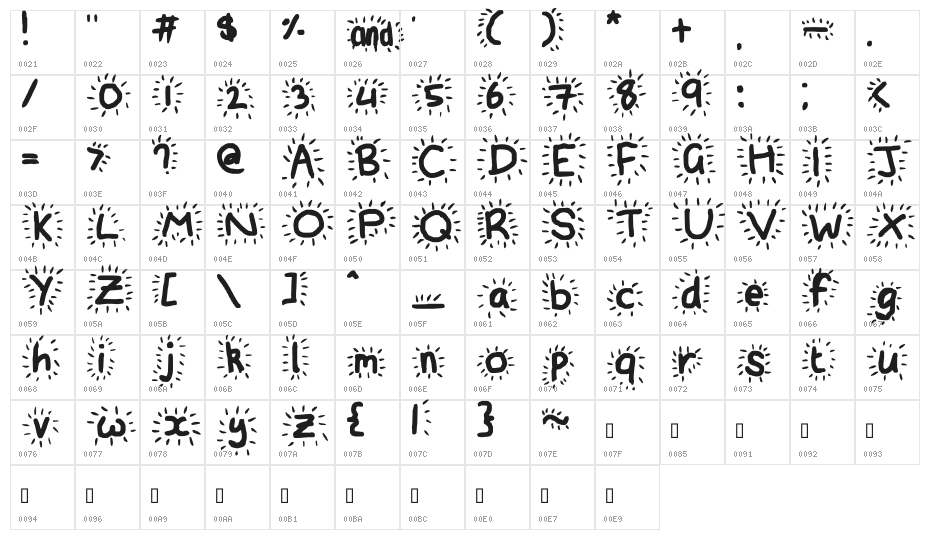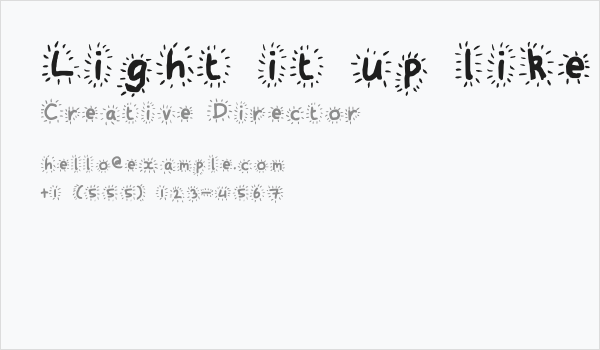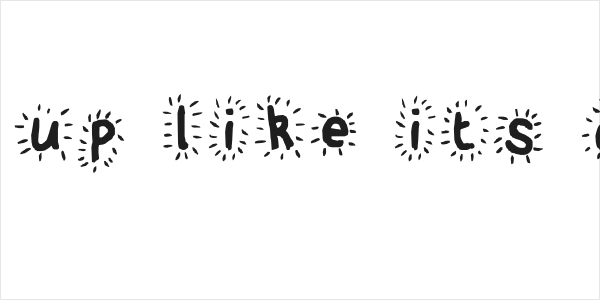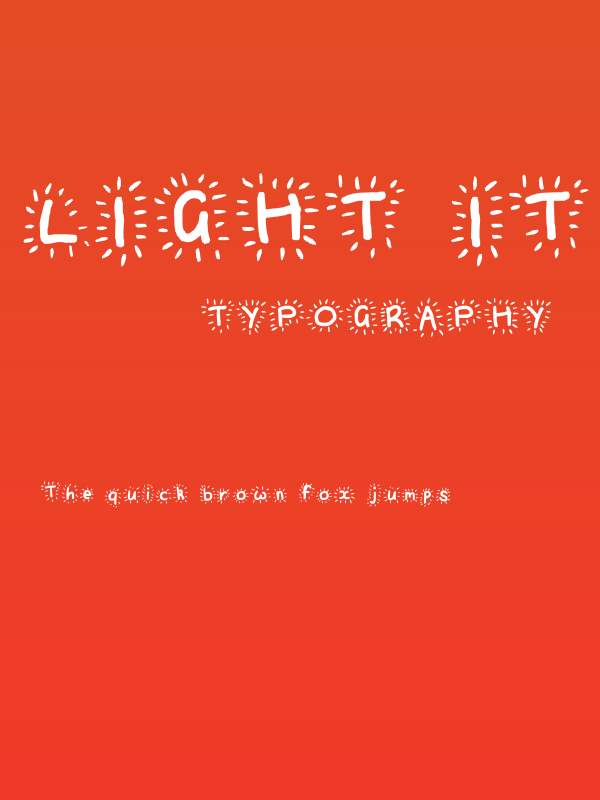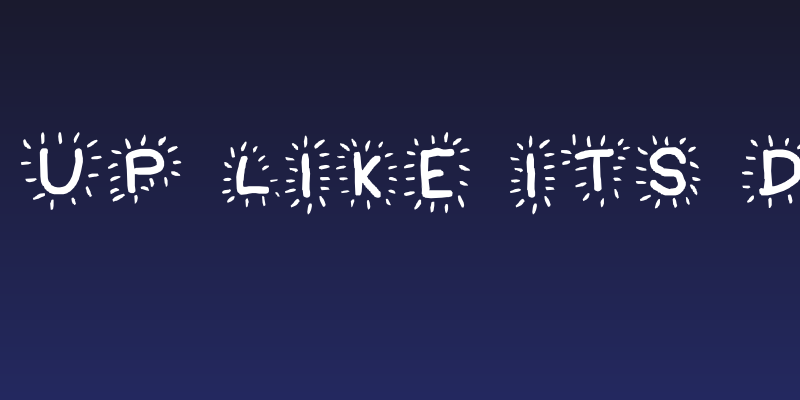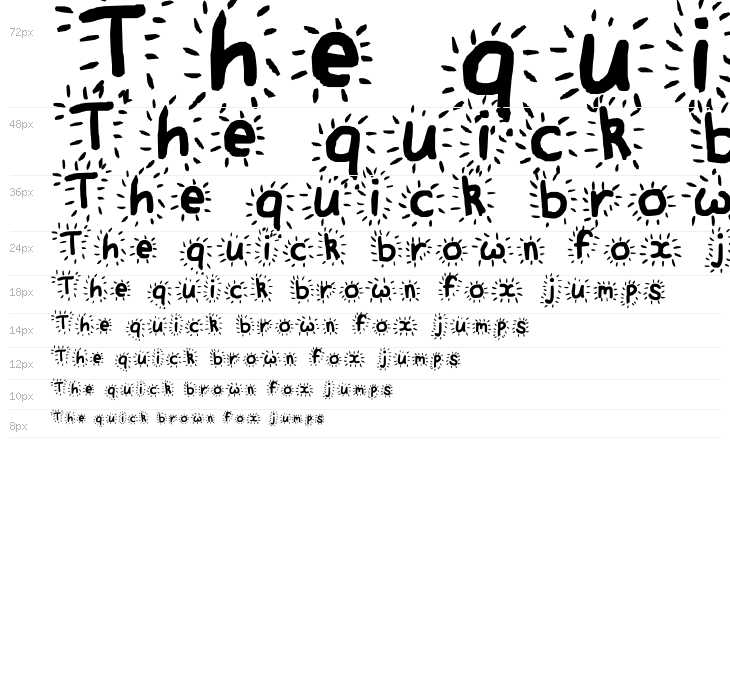
Light it up like its dynamite Font
Light it up like its dynamite Description
This playful and energetic font features a unique design where each character is surrounded by dynamic, starburst-like lines, giving it a lively and explosive appearance. The uppercase and lowercase letters maintain a consistent style, with rounded edges and a bold presence. Numbers and special characters are equally adorned with the same vibrant embellishments, ensuring a cohesive look across all glyphs. This font is perfect for projects that require a fun and eye-catching aesthetic, such as party invitations, children's books, or playful branding materials.
| Proposed Projects | Ideal for party invitations, children's books, playful branding, and festive event materials. |